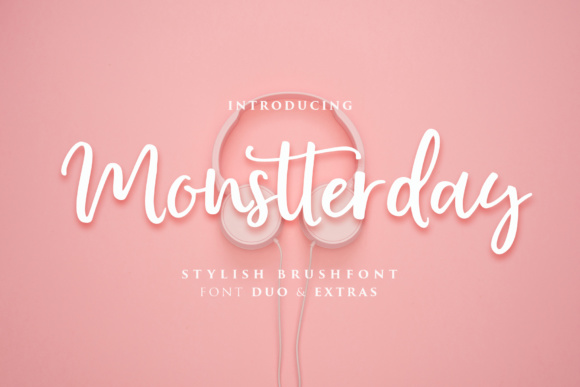
Step into the realm of enchanting calligraphy with Monstterday Script Font, a masterpiece that will leave you spellbound. This elegant handwritten font, crafted by the talented fargunstudio, invites you to embark on a journey of creativity and expression. Its dancing baseline adds a touch of whimsy to your designs, lending them a classic and elegant charm.
Indulge in the versatility of Monstterday, a font that seamlessly dances across various projects. Whether you're designing headings that command attention, crafting personalized signatures that exude individuality, or creating logos that leave a lasting impression, Monstterday will effortlessly elevate your creations.
Picture this: Monstterday gracing your wedding invitations, adding a touch of timeless romance to the most special day of your life. Its delicate strokes will capture the essence of your love story, making each invitation a cherished keepsake.
Unleash your creativity with Monstterday on your custom t-shirts. Let your words take center stage, adorned with this beautiful script. Share your messages, your art, or your brand with a touch of elegance that's sure to turn heads.
Experience the versatility of Monstterday on your letterheads. Its refined strokes will add a touch of sophistication to your business correspondence, leaving a lasting impression on clients and partners alike.
With Monstterday, the possibilities are endless. Let your imagination soar as you explore the myriad of ways to incorporate this enchanting font into your designs. Don't just take our word for it, embark on your creative odyssey with Monstterday today and witness the transformation it brings to your projects!